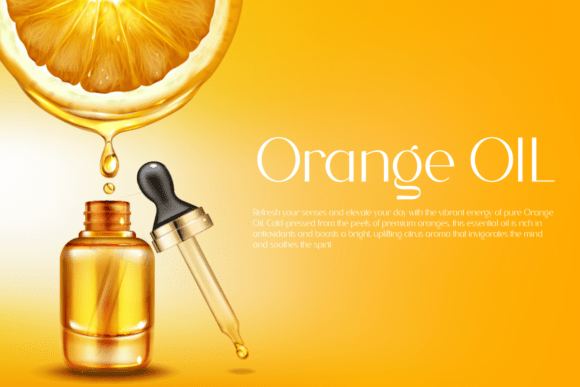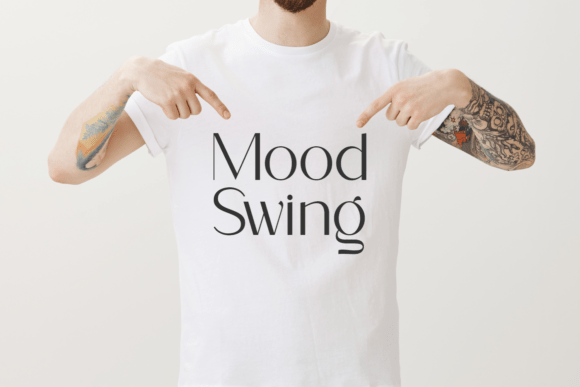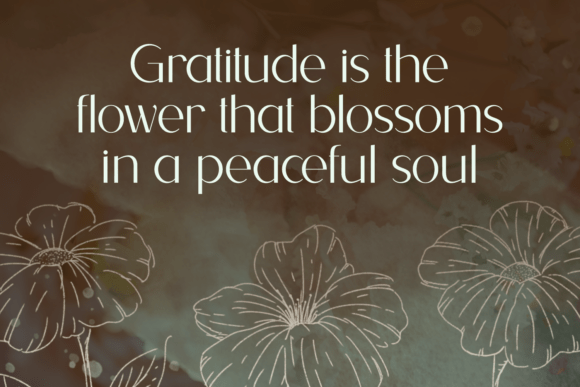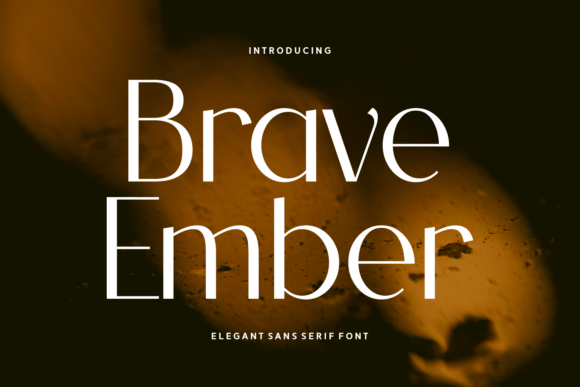
Introduction to Brave Ember Font
Brave Ember is a refined sans serif font that exudes quiet confidence and timeless style.
With its slim structure, high contrast, and sophisticated curves, this font is ideal for luxury branding, fashion editorials, packaging design, and wedding invitations The subtle flair in the letterforms gives it a distinctive voice without sacrificing readability.
Why Choose Brave Ember Font?